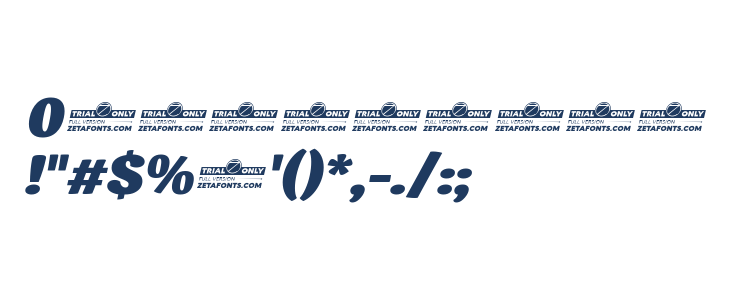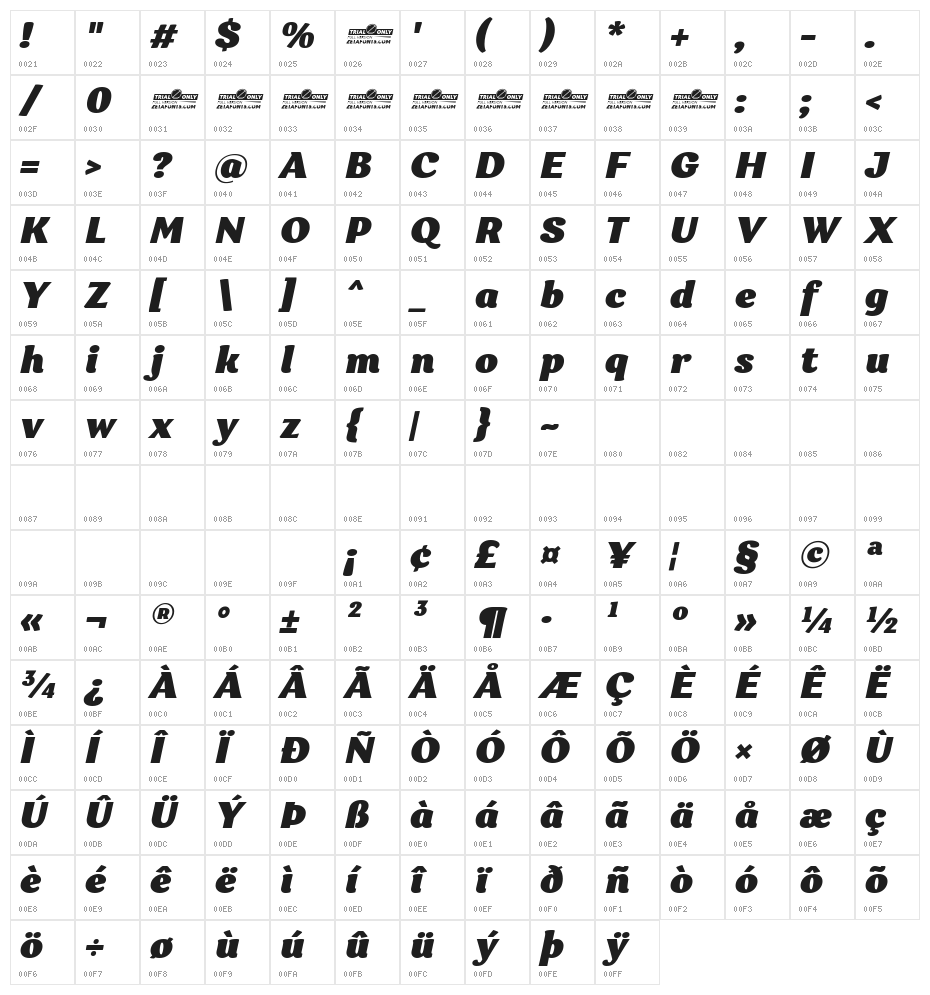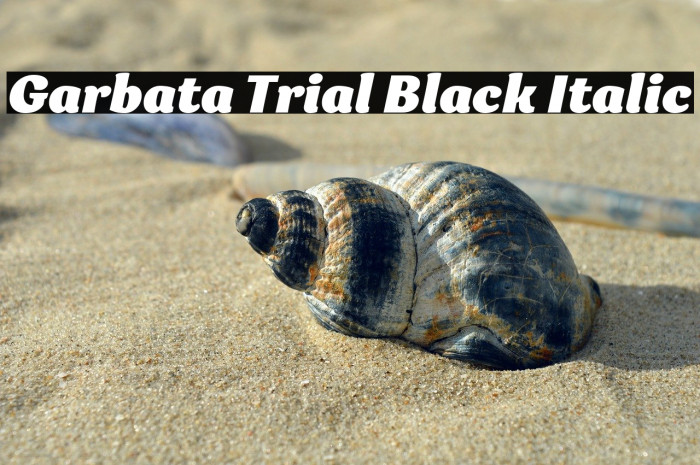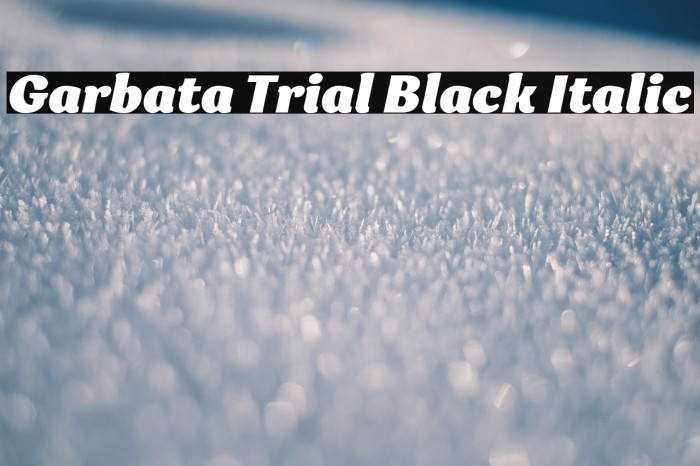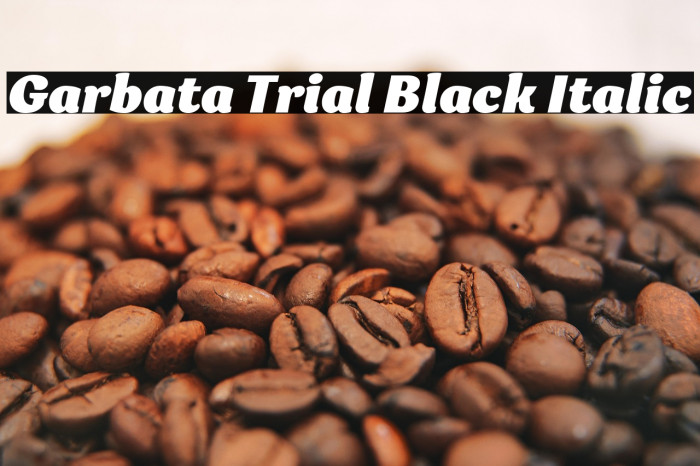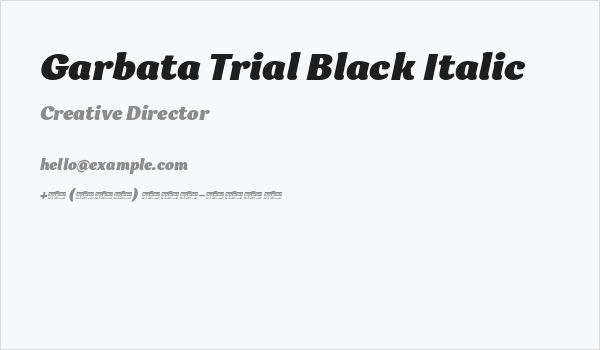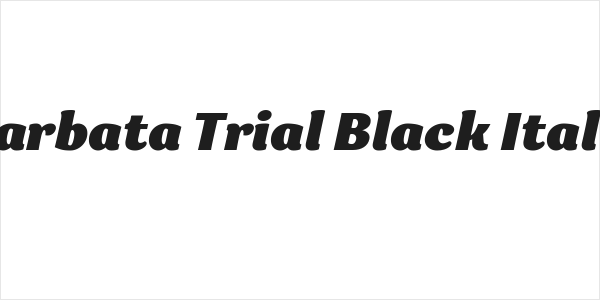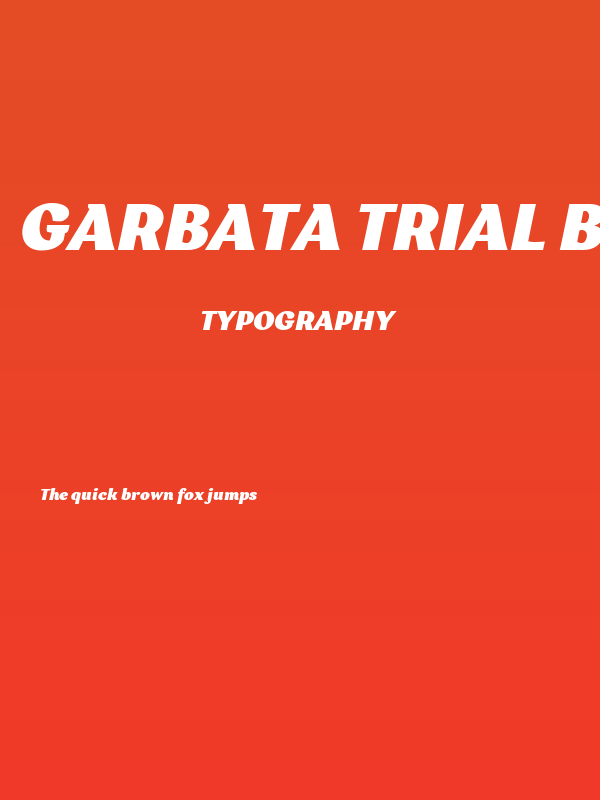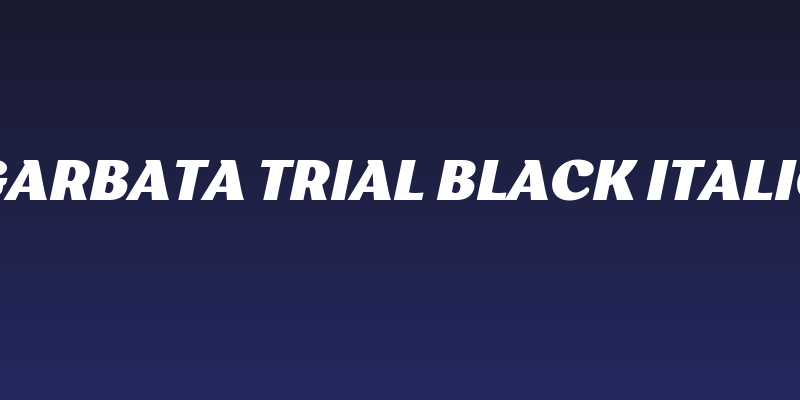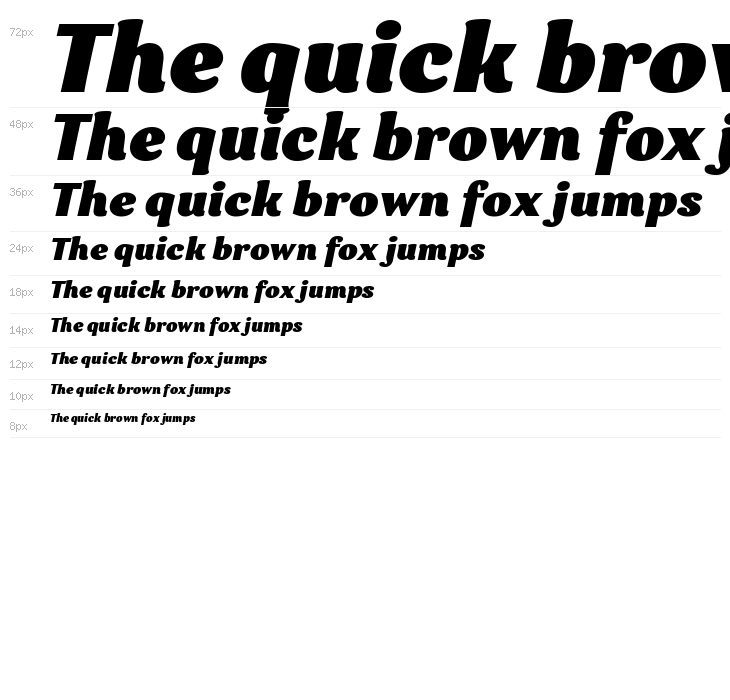
Garbata Trial Black Italic Font
Garbata Trial Black Italic Description
This font exhibits a bold and dynamic style with a strong italic slant, giving it a sense of movement and energy. The characters are robust and impactful, making them suitable for attention-grabbing designs. The uppercase and lowercase letters maintain a consistent weight, providing a cohesive look. The numerals and special characters are designed to match the overall boldness, ensuring uniformity across different text elements. The font's design is modern and versatile, making it suitable for various creative applications.